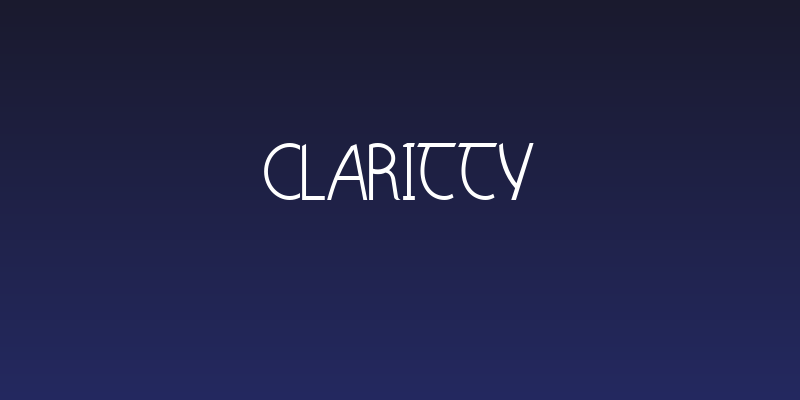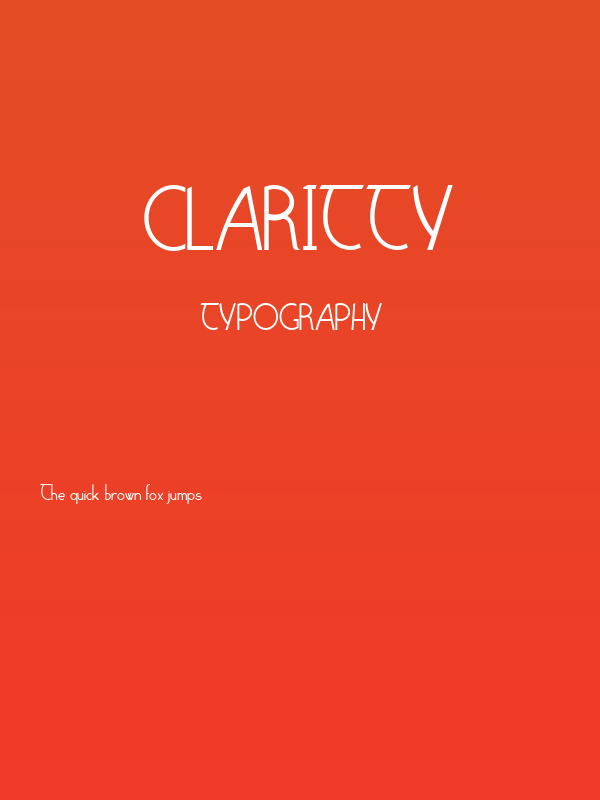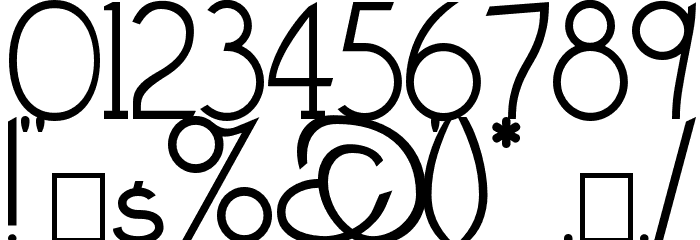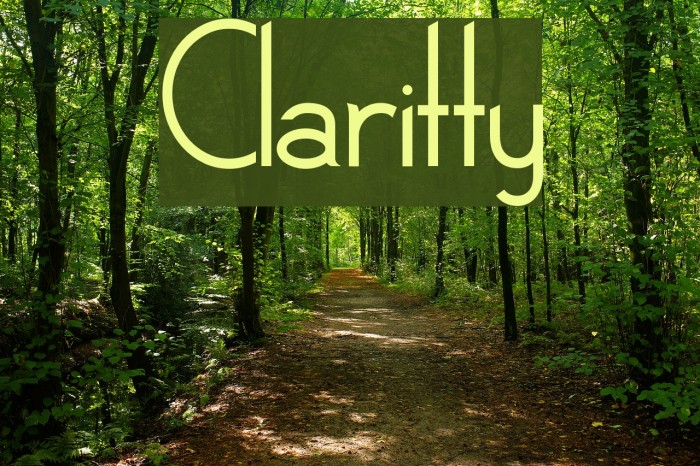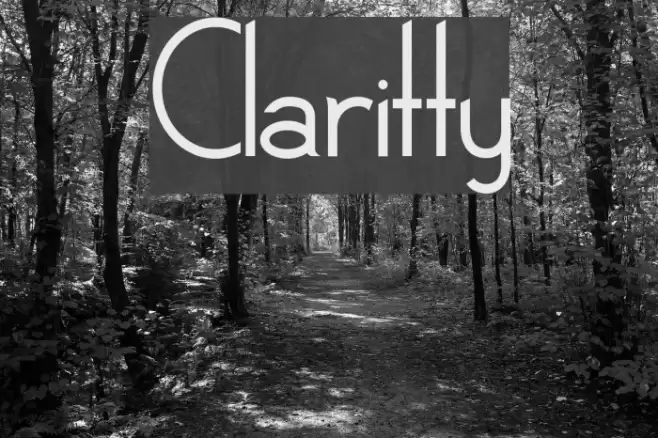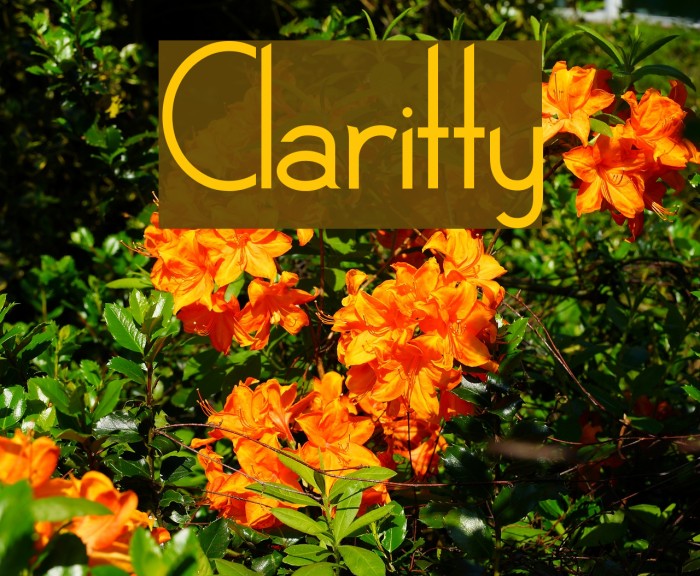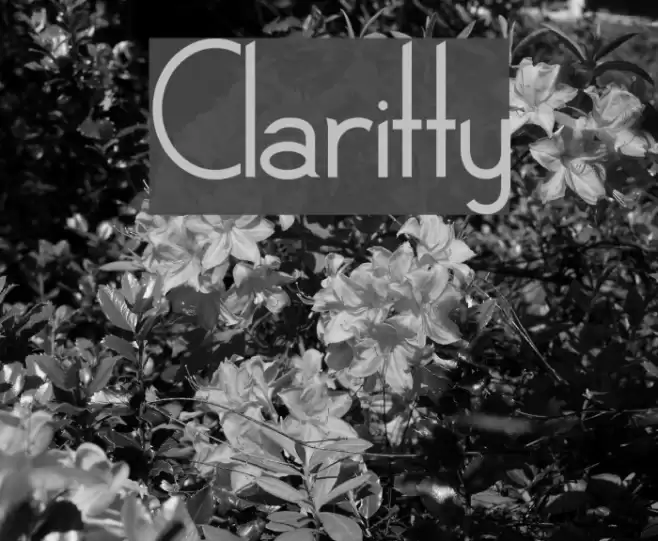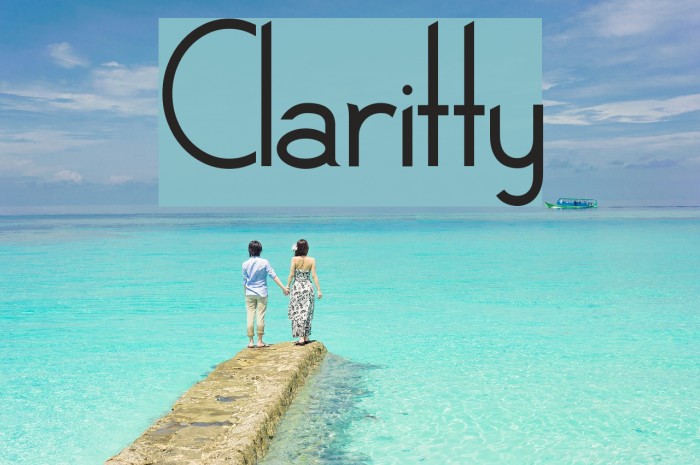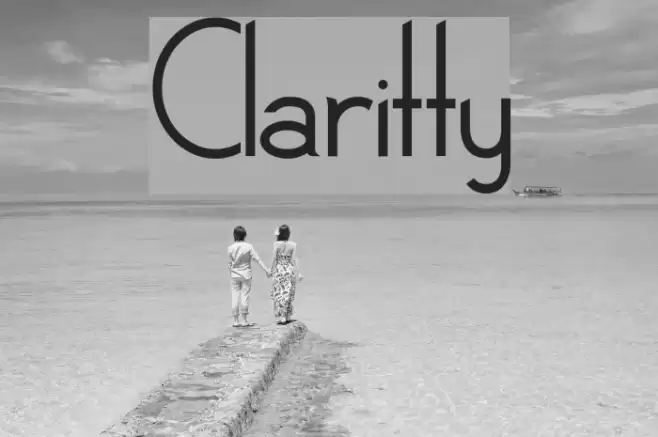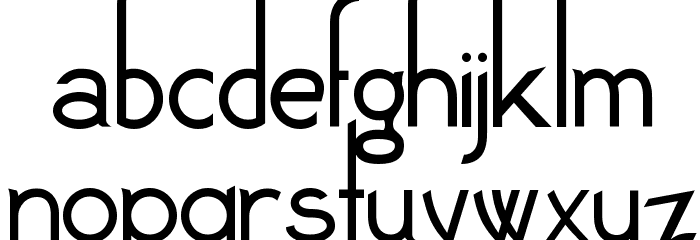
Claritty Font
Claritty Description
This font features a unique blend of geometric and art deco influences, characterized by its tall, narrow letterforms and distinct angular elements. The uppercase letters exhibit a striking elegance with their elongated lines and subtle curves, while the lowercase letters maintain a consistent style with a slightly more rounded appearance. The numerals are designed with a similar aesthetic, offering a cohesive look across all characters. Special characters are thoughtfully crafted, adding to the font's overall sophisticated and modern appeal. The font's clean lines and balanced proportions make it suitable for a variety of design applications.
| Proposed Projects | Ideal for branding, editorial design, posters, and luxury product packaging. |